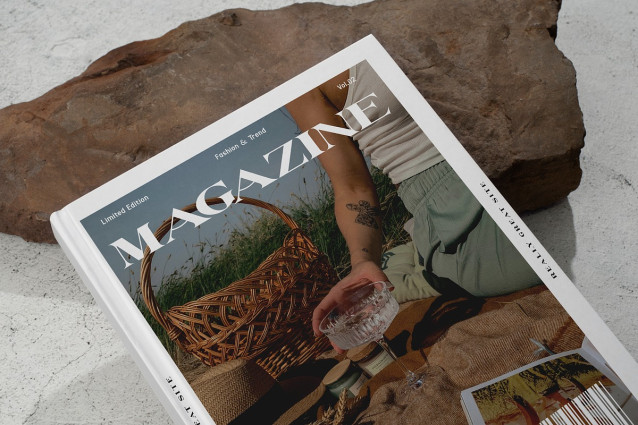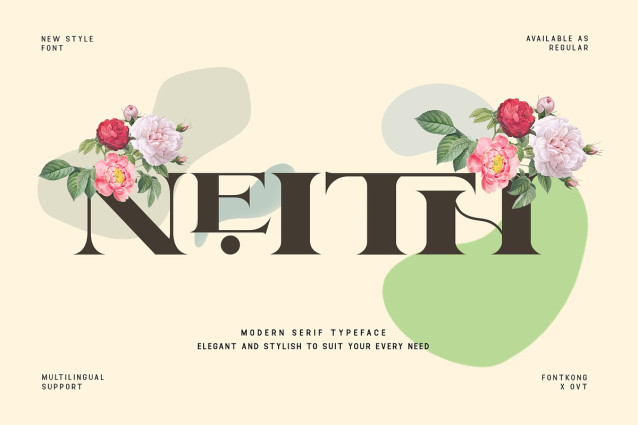
Neith Font
Neith Font a sophisticated modern serif typeface that combines classic beauty with contemporary style. Perfect for branding, editorial work, invitations, and web design, “Neith” offers versatility and elegance for a wide range of creative projects.
“Neith” features elegant serifs and clean lines, creating a balanced and harmonious look. Its modern proportions and refined details ensure excellent readability and a polished appearance. The font includes a comprehensive set of uppercase and lowercase letters, numerals, punctuation, and multilingual support, making it an ideal choice for diverse applications.
Whether you’re crafting luxurious invitations, designing chic editorials, creating stylish branding materials, or developing professional websites, “Neith” brings a touch of sophistication and timeless elegance to your work. Its exquisite design makes it a go-to font for projects that demand a classy and professional look.